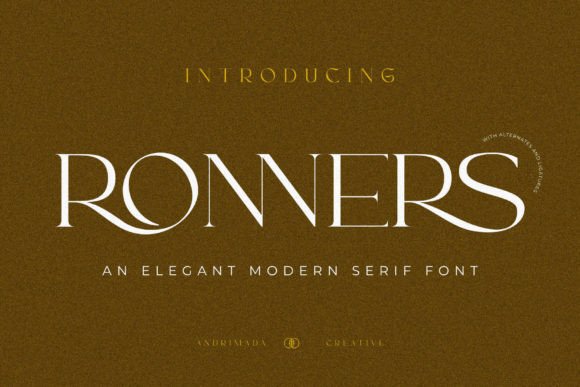
Immerse yourself in the world of Ronners Font, the sophisticated serif typeface handcrafted by Madatype Studio. Designed to captivate and inspire, Ronners is a visual symphony that blends timeless elegance with a modern spirit. Embark on a creative journey and experience the boundless possibilities it holds.
Ronners: A Timeless Masterpiece for Your Creative Endeavors
With its meticulously crafted curves and impeccable details, Ronners exudes an aura of sophistication that elevates your designs to new heights. Each letterform is a testament to the artistry of the Madatype Studio, showcasing a fusion of classic and contemporary influences. Whether you're a seasoned designer or just starting your creative journey, Ronners is your perfect companion.
Fashion Forward with Ronners: The Epitome of Style
Immerse yourself in the world of fashion and branding with Ronners. Its graceful lines and timeless appeal make it the ideal choice for creating captivating t-shirt designs, logos that leave a lasting impression, and corporate fonts that exude professionalism. Elevate your brand's identity with Ronners and watch it flourish in the competitive fashion landscape.
Beyond Fashion: A Font for All Creative Pursuits
Ronners is not limited to the realm of fashion. Its versatility knows no bounds. Whether you're designing brochures, posters, or invitations, Ronners seamlessly adapts, adding a touch of elegance and sophistication to every project. Unleash your creativity and explore the endless possibilities that await you with Ronners.
Experience the Ronners Difference: A Fusion of Elegance and Versatility
Ronners is more than just a font; it's an experience that transforms your creative vision into reality. Its refined and unique design adds a touch of class and modernity, allowing you to create designs that stand the test of time. Embrace the beauty of Ronners and let your creations captivate audiences with their timeless appeal.